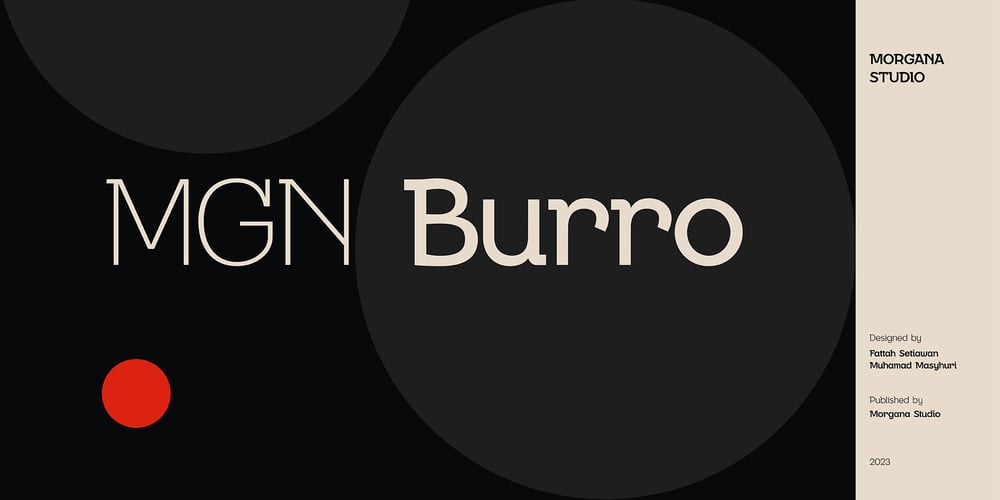
MGN Burro
MGN Burro font
MGN Burro Font Family was designed by Muhamad Masyhuri, Fattah Setiawan and published by Morgana Studio. MGN Burro contains 7 styles and family package options. MGN Burro by Morgana Studio is a slab serif font offering 7 styles: Thin, Light, Regular, Medium, Semibold, Bold, and Extra Bold. Combining classic and modern elements, it caters to diverse designs, ensuring readability and impact. From delicate Thin to bold Extra Bold, each weight caters to various preferences, making MGN Burro a versatile toolkit for designers.